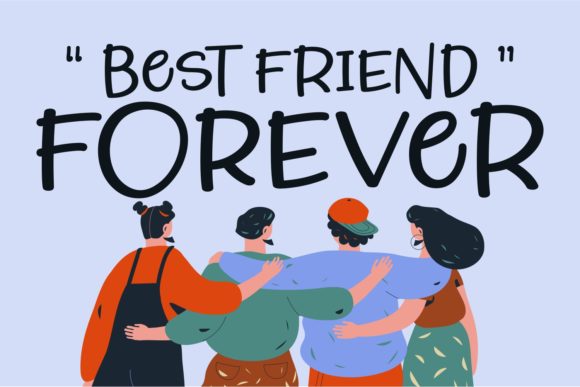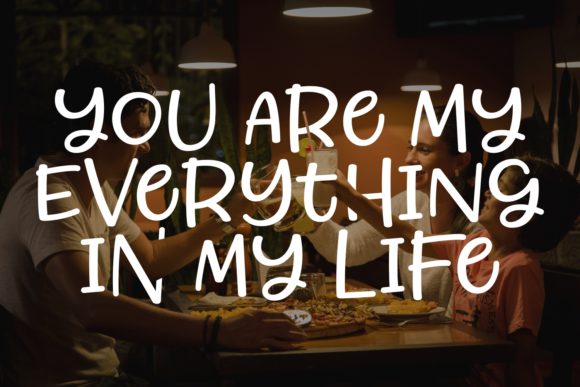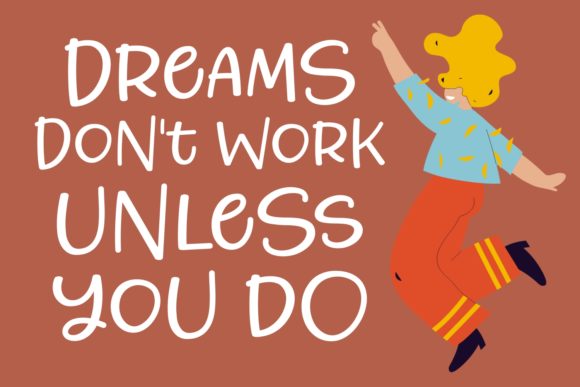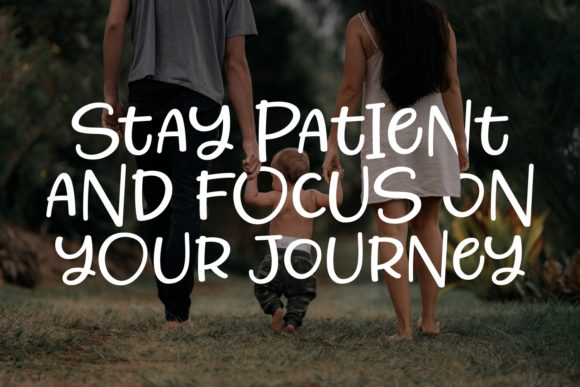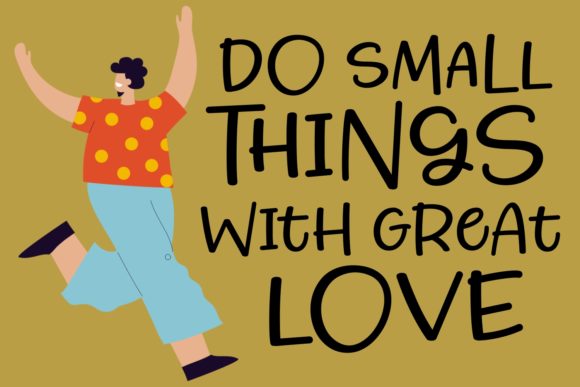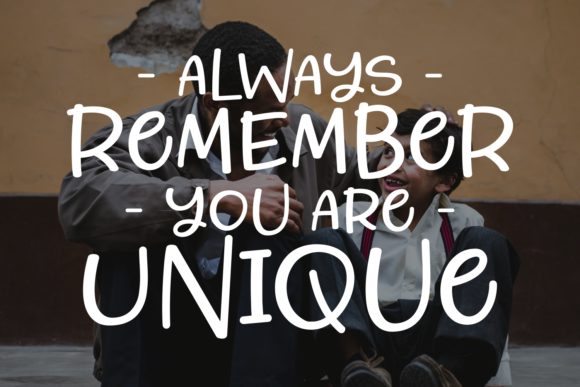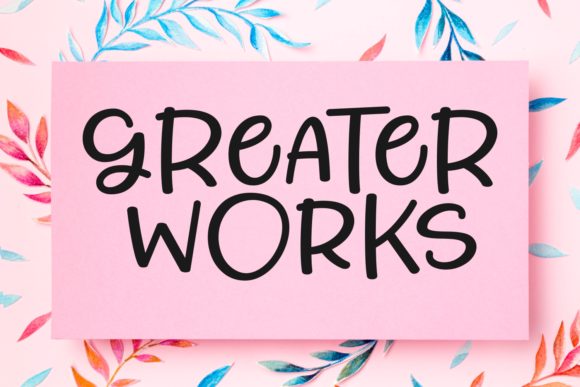
Introducing Greater Works Font: The Perfect Addition to Your Design Arsenal
Are you tired of using the same old fonts in your designs? Do you want to add a touch of personality and whimsy to your creations? Look no further than Greater Works Font, a cute and quirky handwritten font that’s sure to bring a smile to your face. In this article, we’ll dive into the world of Greater Works Font and explore how it can elevate your designs to the next level.
Handwritten fonts have a way of adding a personal touch to any design. They’re like a warm hug from a friend – they make you feel seen and appreciated. And Greater Works Font is no exception. With its playful, cursive strokes and charming imperfections, this font is sure to capture the hearts of designers and crafters alike.
What Makes Greater Works Font So Special?
So, what sets Greater Works Font apart from other fonts out there? For starters, its unique blend of playfulness and sophistication makes it perfect for a wide range of design projects. Whether you’re working on a logo, a poster, or a social media graphic, Greater Works Font is sure to add a touch of magic to your design.
But that’s not all. Greater Works Font is also incredibly versatile. It can be used in a variety of contexts, from formal to informal, and can be paired with a range of other fonts to create a unique look. And with its clear, legible letters, it’s perfect for designs that require a bit of text, such as headings, titles, and captions.
How to Use Greater Works Font in Your Designs
So, how can you start using Greater Works Font in your designs? Here are a few ideas to get you started:
• Pair it with bold fonts: Greater Works Font pairs perfectly with bold, sans-serif fonts. Try pairing it with a font like Arial Black or Impact to create a striking contrast.
• Add it to your branding: If you’re looking to add a personal touch to your brand, consider using Greater Works Font in your logo or marketing materials.
• Use it in your social media graphics: Greater Works Font is perfect for social media graphics, such as Instagram posts or Facebook headers. It’s a great way to add a bit of personality to your online presence.
• Try it in your craft projects: If you’re a crafter, you’ll love using Greater Works Font in your projects. Try adding it to your journal pages, scrapbook layouts, or card making projects.
The Benefits of Using Greater Works Font
So, why should you choose Greater Works Font for your designs? Here are just a few benefits:
• It’s unique: Greater Works Font is a one-of-a-kind font that’s sure to set your designs apart from the crowd.
• It’s versatile: This font can be used in a wide range of design projects, from formal to informal.
• It’s easy to read: Despite its playful nature, Greater Works Font is clear and easy to read, making it perfect for designs that require a bit of text.
• It’s fun: Let’s face it – Greater Works Font is just plain fun! It’s the perfect way to add a bit of whimsy to your designs.
In conclusion, Greater Works Font is a must-have for any designer or crafter looking to add a touch of personality to their designs. With its playful, cursive strokes and charming imperfections, this font is sure to capture the hearts of anyone who sees it. So why wait? Download Greater Works Font today and start adding a bit of joy to your designs!
Greater Works Font is a cute and quirky handwritten font that will add an incredibly joyful touch to your designs. Add this beautiful font to each of your creative ideas and notice how it makes them stand out!